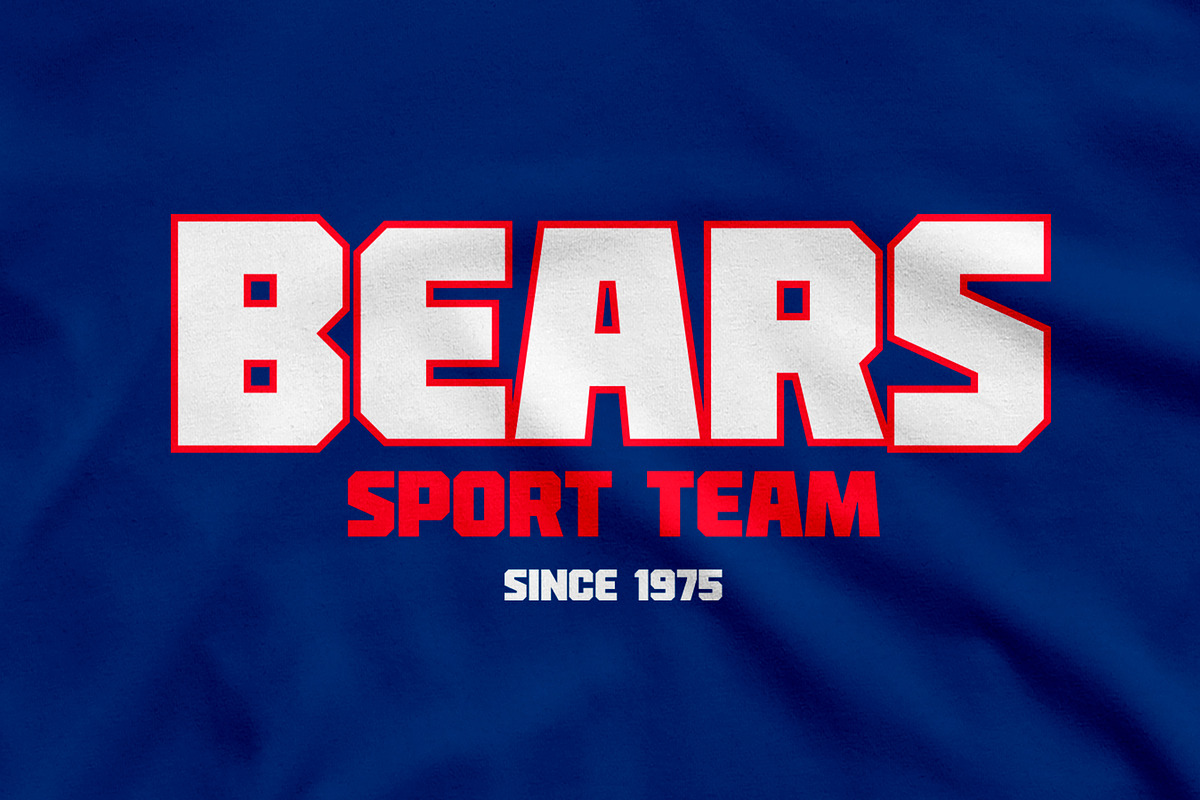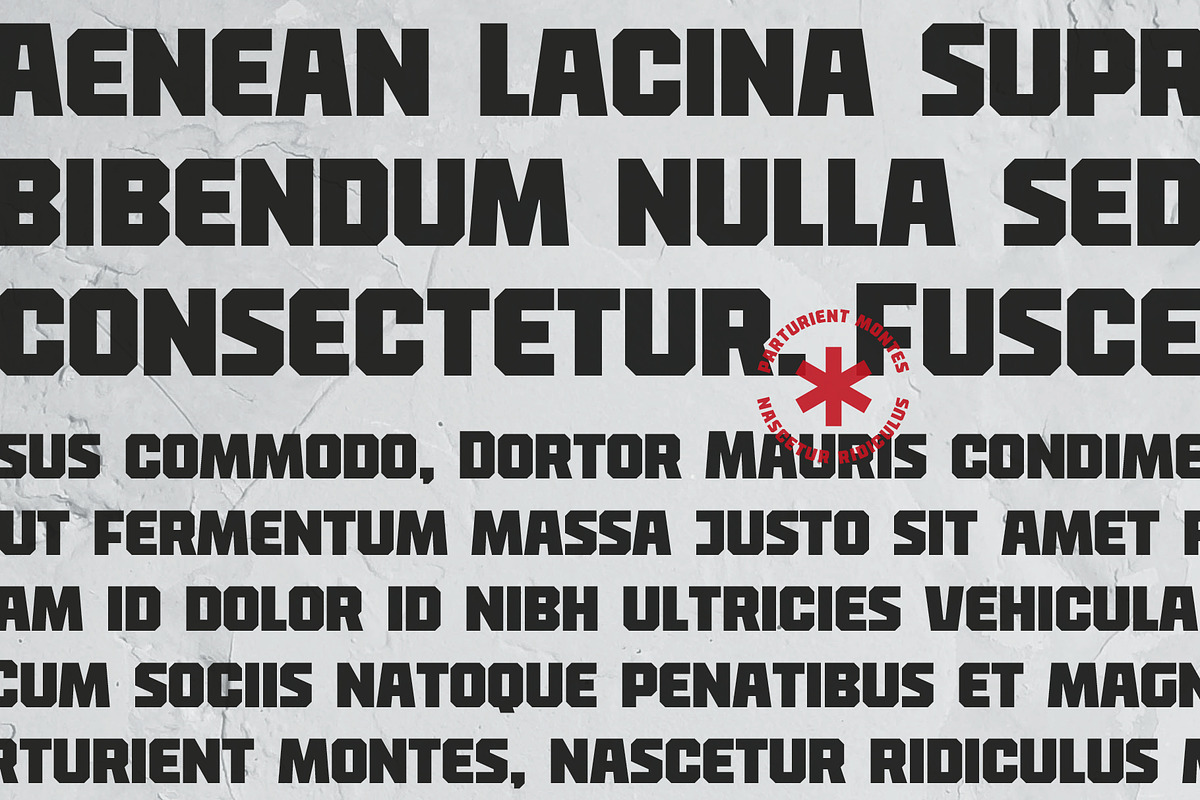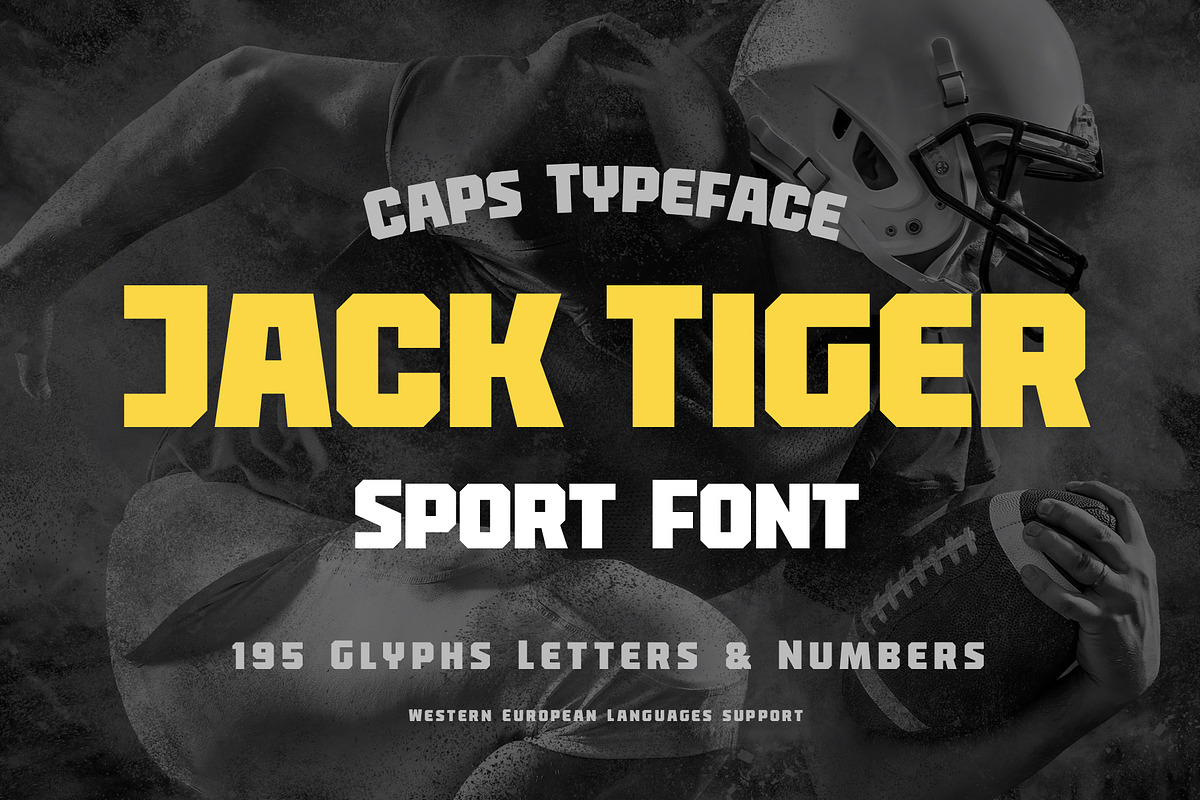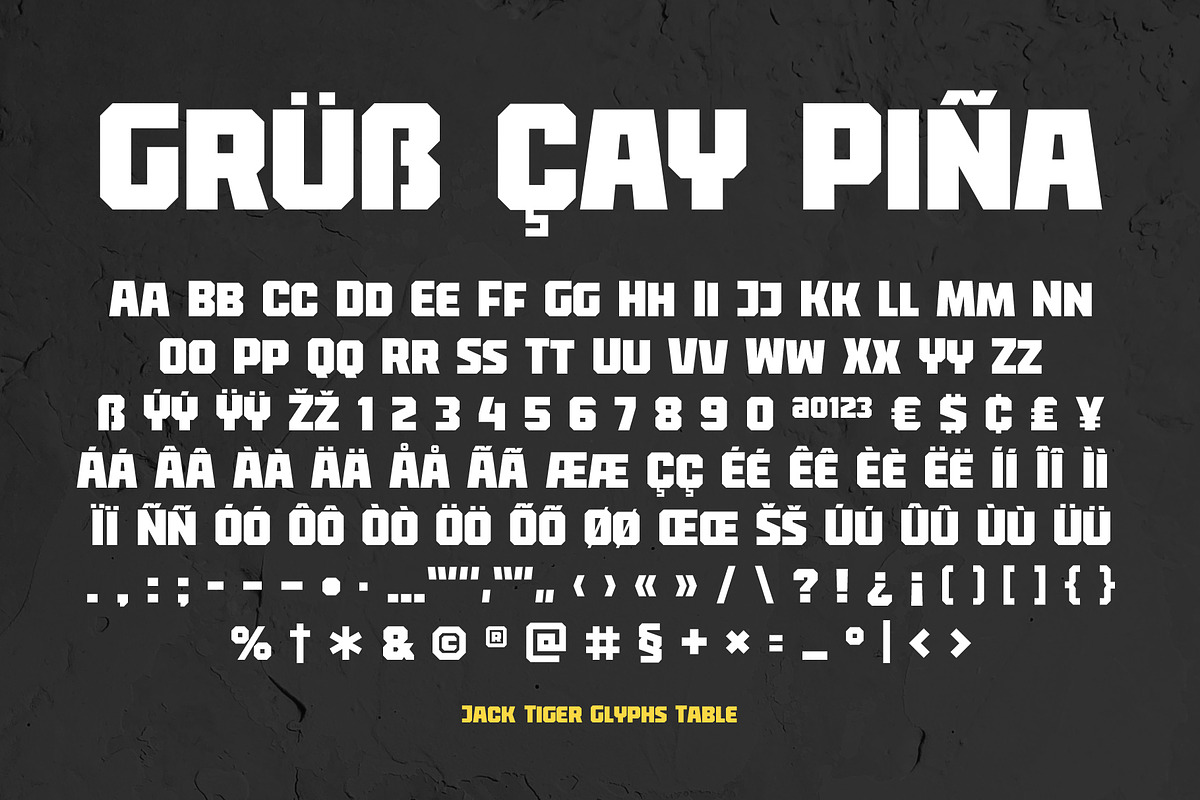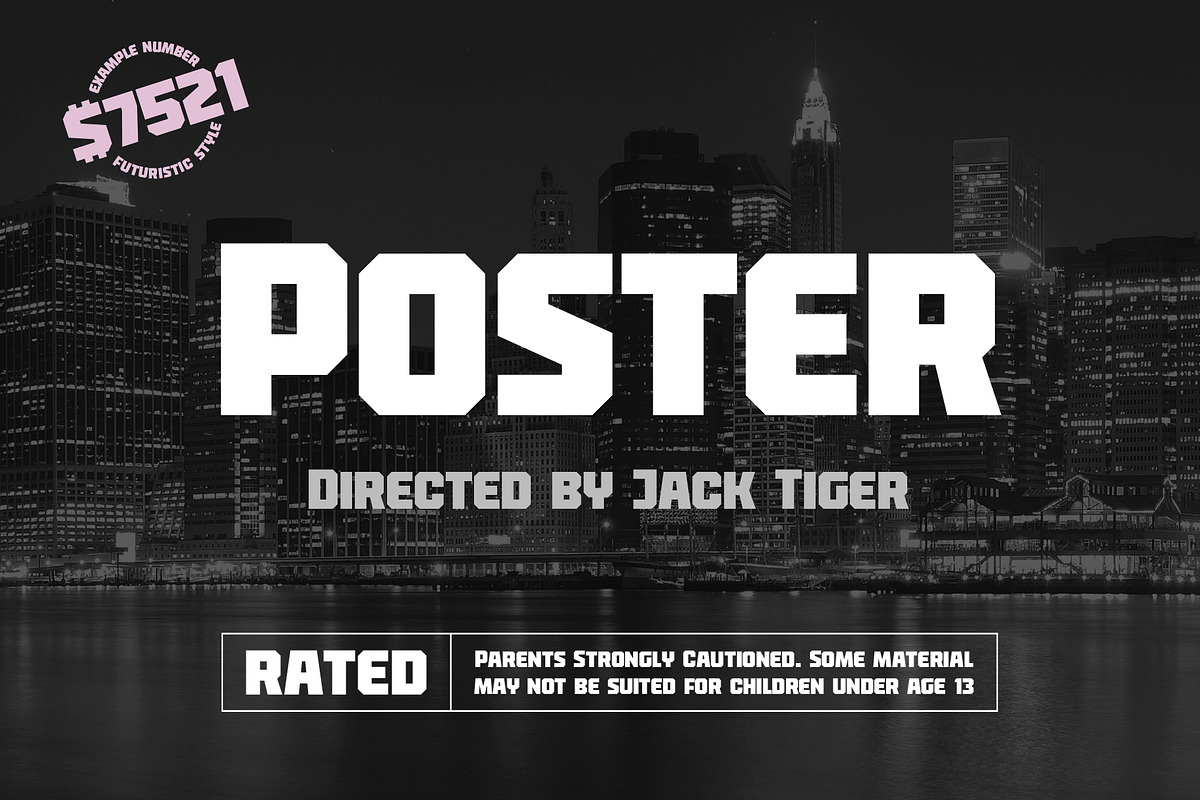
Jack Tiger Sport Font
Jack Tiger is a sharp and bold "athletic" font. The font is based on the original geometric proportion. Good for American sports and college or university styling. This display typeface is perfect for logo, headlines or emblems design, sports branding, posters, labels, t-shirts and so much more. Version 1.086